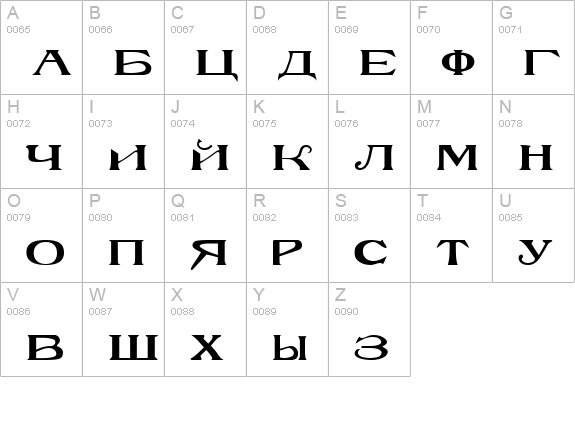
Russkij ModernDemo Font Details
Russkij ModernDemo font is a stunning display typeface that beautifully blends modern aesthetics with traditional Russian calligraphy influences. Its elegant and sophisticated design makes it perfect for adding a touch of class to any project. The sharp and clean lines of this font give it a contemporary edge, while still retaining a sense of timeless elegance. Best of all, Russkij ModernDemo font is available for free download at FontsMarket.com. This means that you can enhance your designs with this exquisite font without any cost. Whether you are working on a branding project, a website design, or any other creative endeavor, Russkij ModernDemo font is sure to elevate your work to the next level. Download it now and bring a touch of Russian charm to your projects.